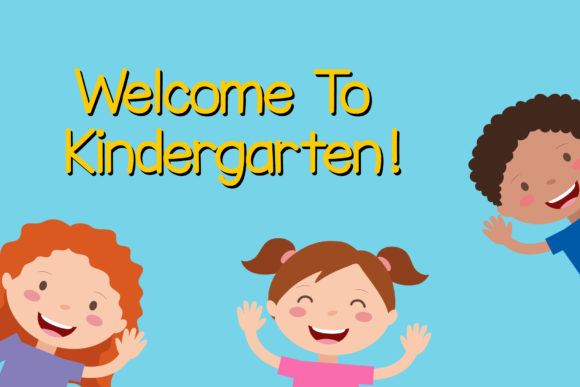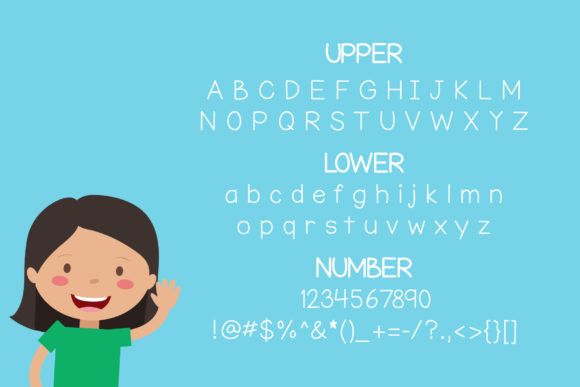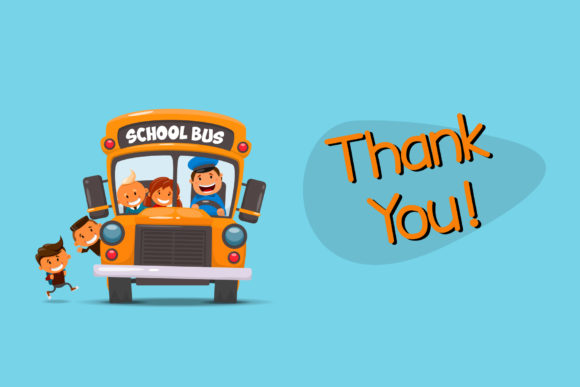
A Handwritten Touch for Your Designs
Who hasn’t been stuck on a creative project, struggling to find the perfect font to bring their idea to life? As designers, we know the feeling of pouring over font options, searching for that one special something that will elevate our design and capture the audience’s attention. It’s moments like these that remind us of the importance of the right font in our creative process.
Enter the charming Kirado Kindergarten Font, a delightful handwritten font that brings a touch of whimsy and playfulness to any design. Perfect for children’s themes and educational materials, this font is designed to be clean, thin, and smooth, making it a joy to work with. Whether you’re creating a colorful kids’ book or a cheerful marketing campaign, the Kirado Kindergarten Font is sure to be a valuable addition to your design toolkit.
Kirado Kindergarten Font Key Features
- Character Set: Includes a wide range of characters, including uppercase and lowercase letters, numbers, punctuation, and special characters
- Unique Characteristics: Designed specifically for use in kindergarten and educational settings, featuring rounded and child-friendly shapes
- Resolution: Supports high-resolution displays, making it suitable for use in digital applications
Kirado Kindergarten Font Review
Kirado Kindergarten Font is a beautiful, playful font that’s perfect for creating engaging and whimsical designs. ✨ One of its standout features is its unique, handwritten feel that’s sure to capture the attention of your audience. The font is also highly legible, making it easy to read even in smaller sizes.
Here are some of the things that work well with Kirado Kindergarten Font:
- Unique, handwritten feel that adds a touch of personality to your designs ✨
- Highly legible, even in smaller sizes
- Perfect for creating engaging and whimsical designs
- ⚠️ Limited character set, which may not be suitable for longer blocks of text
- ⚠️ May not be the best choice for formal or professional designs
- Children’s educational materials and activities.
- Fun and playful designs, such as party invitations and decorations.
- Creating a whimsical and imaginative atmosphere in your designs.
- Children’s books and storybooks.
- Education and learning materials, such as worksheets and flashcards.
- Designs for kids’ parties and events.
Overall, I think Kirado Kindergarten Font is a great addition to any designer’s toolkit. While it may not be suitable for every project, it’s perfect for creating playful, engaging designs that are sure to capture the attention of your audience. With its unique feel and high legibility, it’s a great choice for designers looking to add a little personality to their work.
Kirado Kindergarten Font Practical Application Guide
Tips for Getting the Most Out of Kirado Kindergarten Font
Use Kirado Kindergarten Font for:
Kirado Kindergarten Font is commonly used in: